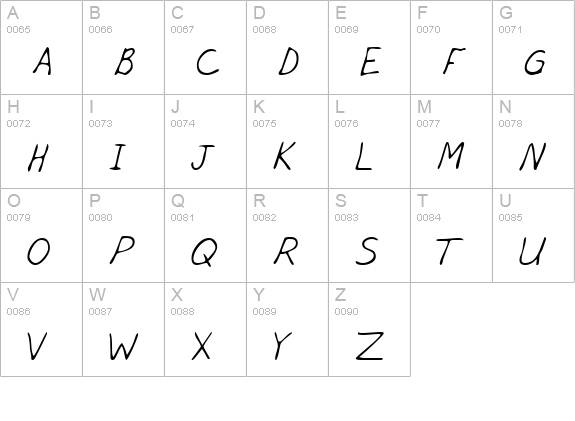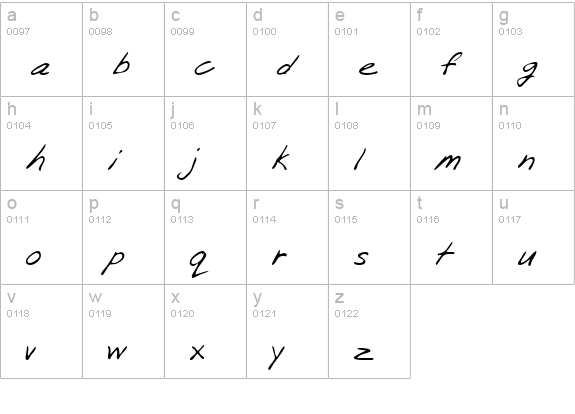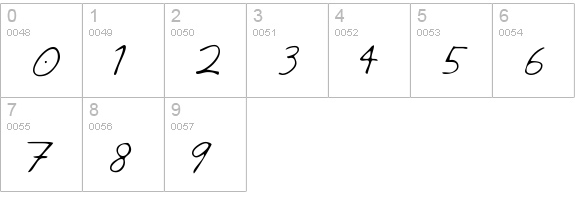
CidsHand Regular Font Details
CidsHand Regular is the standard, neutral variant in the CidsHand typeface family \xE2\x80\x94 well suited to general body text, paragraphs, and standard typographic work.
CidsHand Regular font is a charming and versatile typeface that brings a playful touch to any project. Its handwritten style exudes warmth and personality, making it perfect for a wide range of design applications. Whether you're creating invitations, posters, logos, or social media graphics, CidsHand Regular will add a unique and inviting flair to your work. Best of all, CidsHand Regular is completely free to download at FontsMarket.com. This means you can access this delightful font without any cost, allowing you to enhance your designs without breaking the bank. Don't miss out on this fantastic opportunity to elevate your projects with the whimsical charm of CidsHand Regular font. Download it today and let your creativity soar!